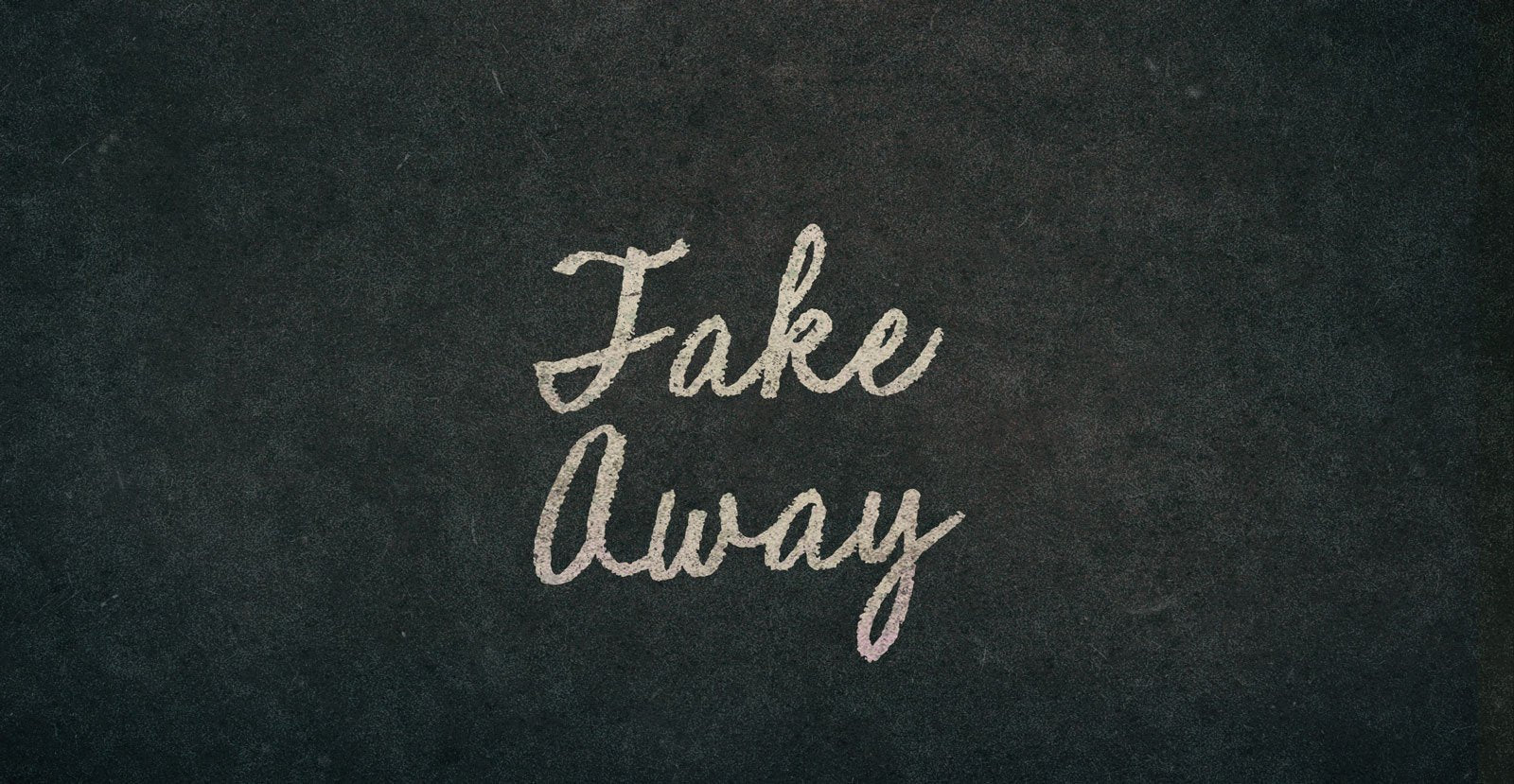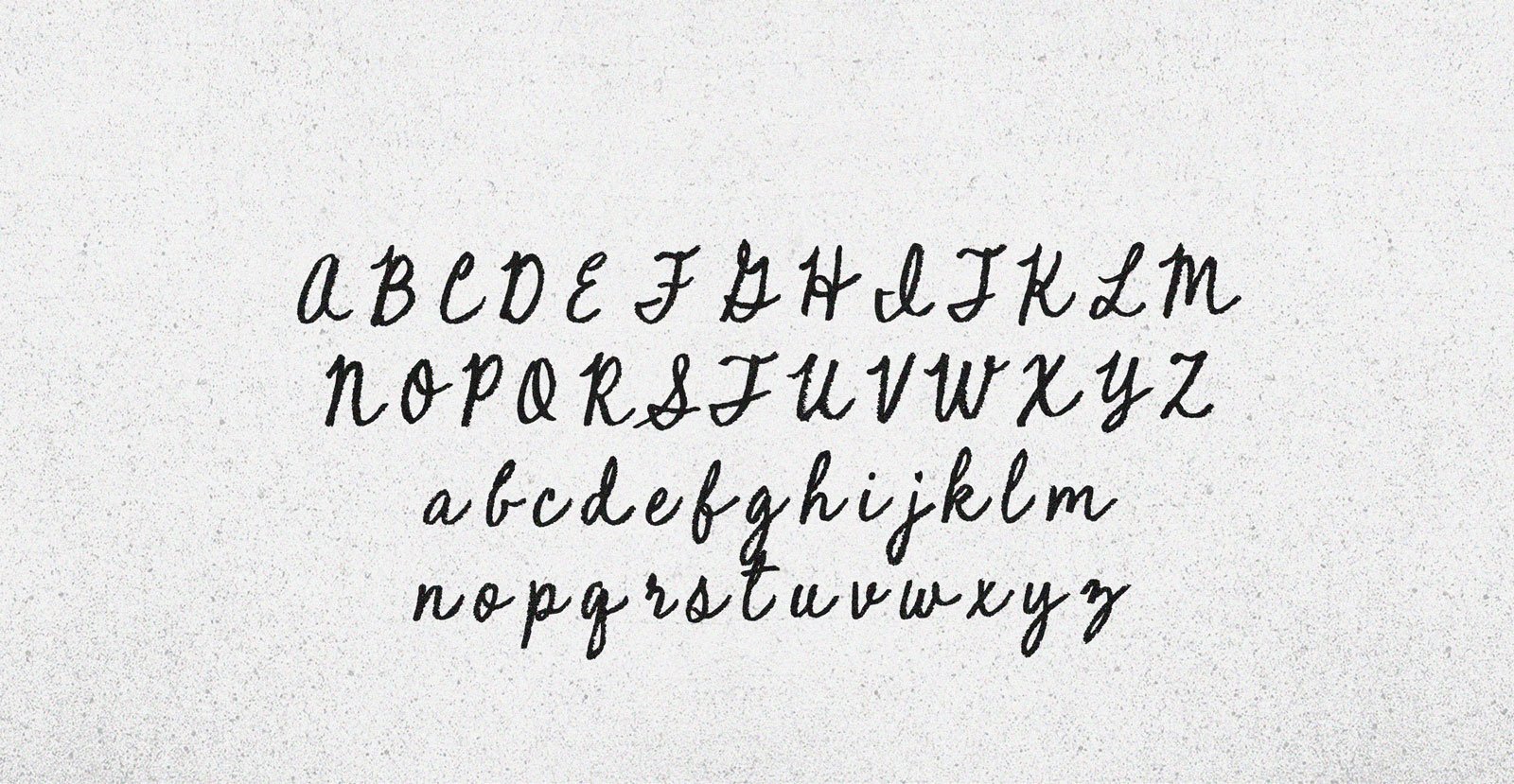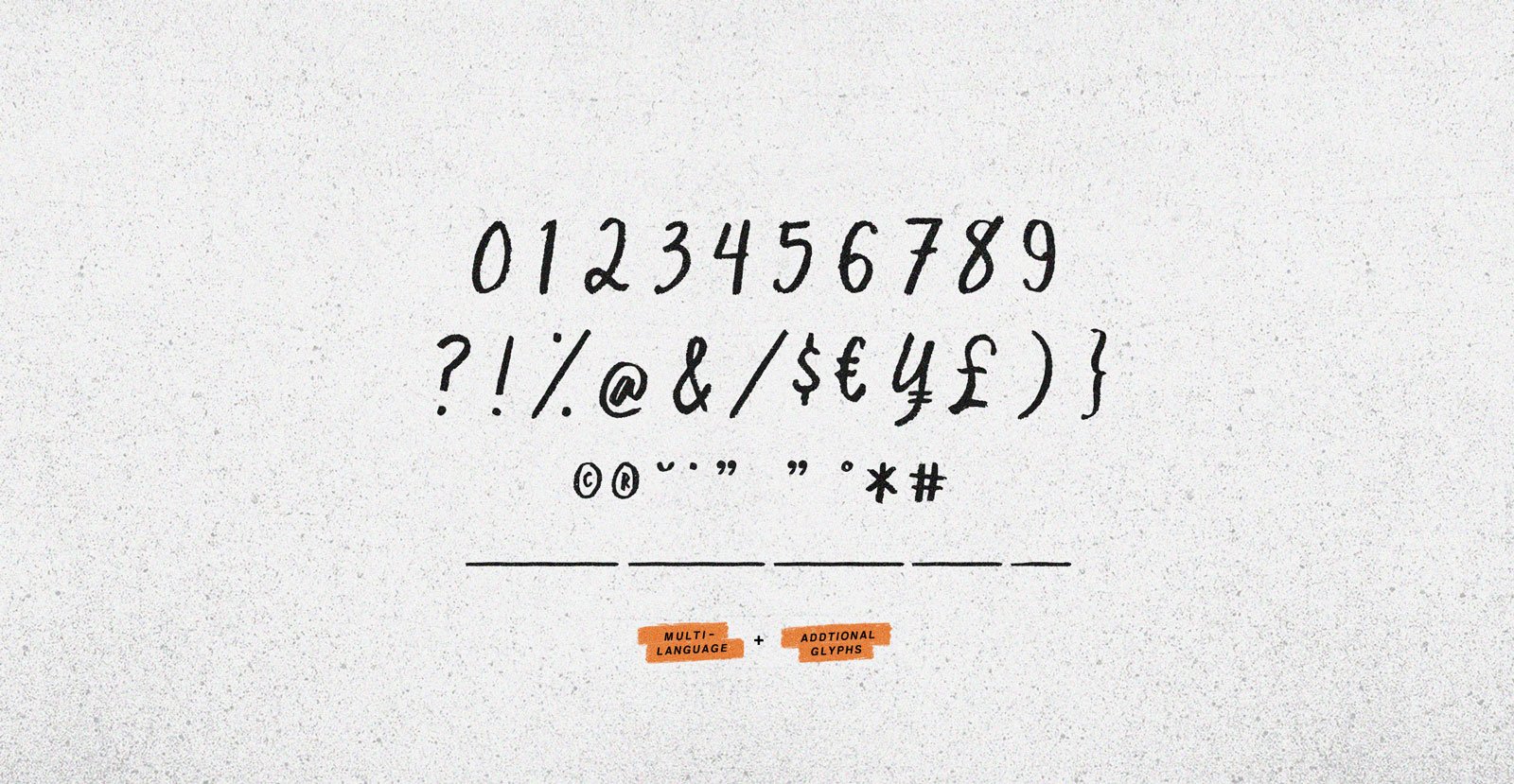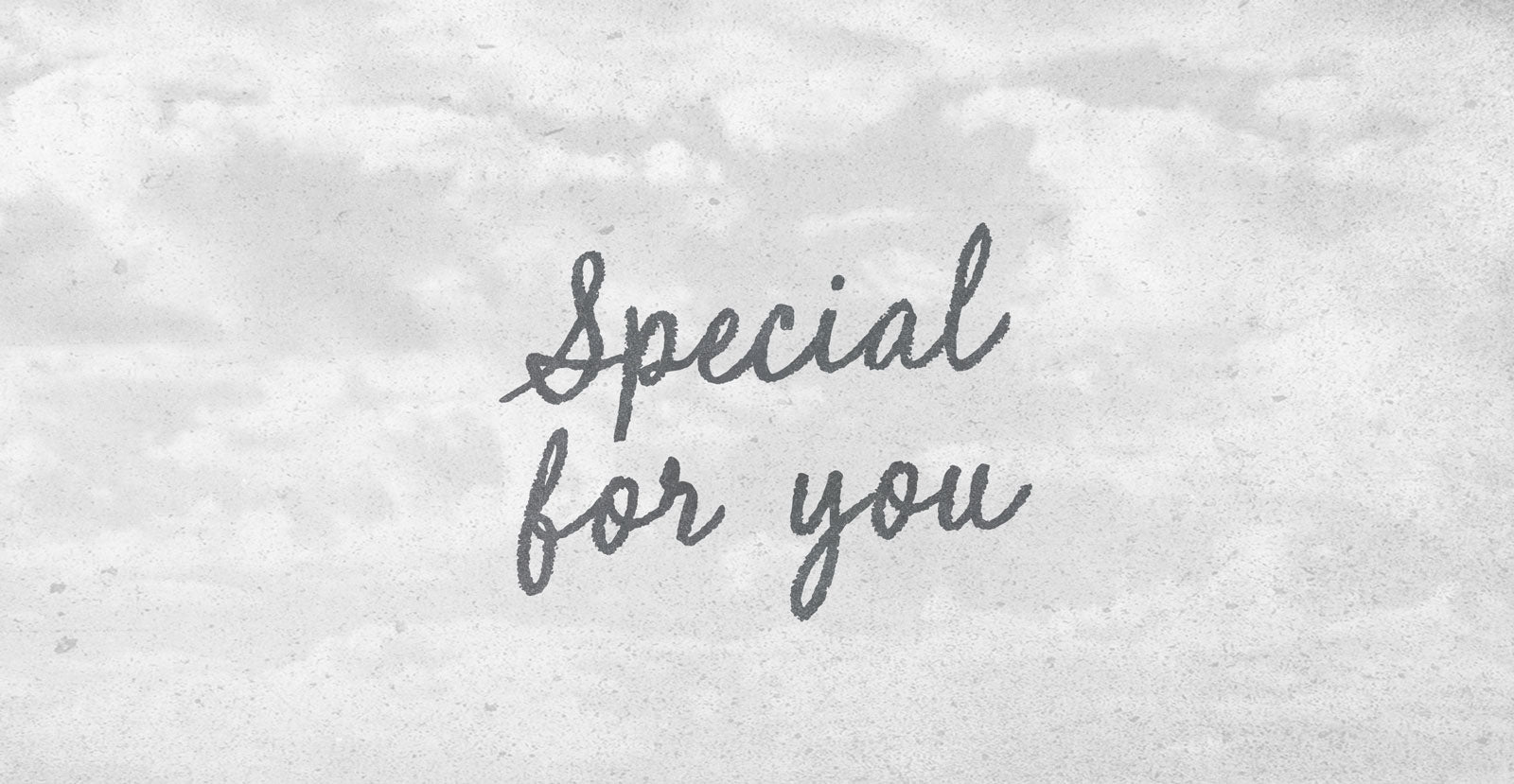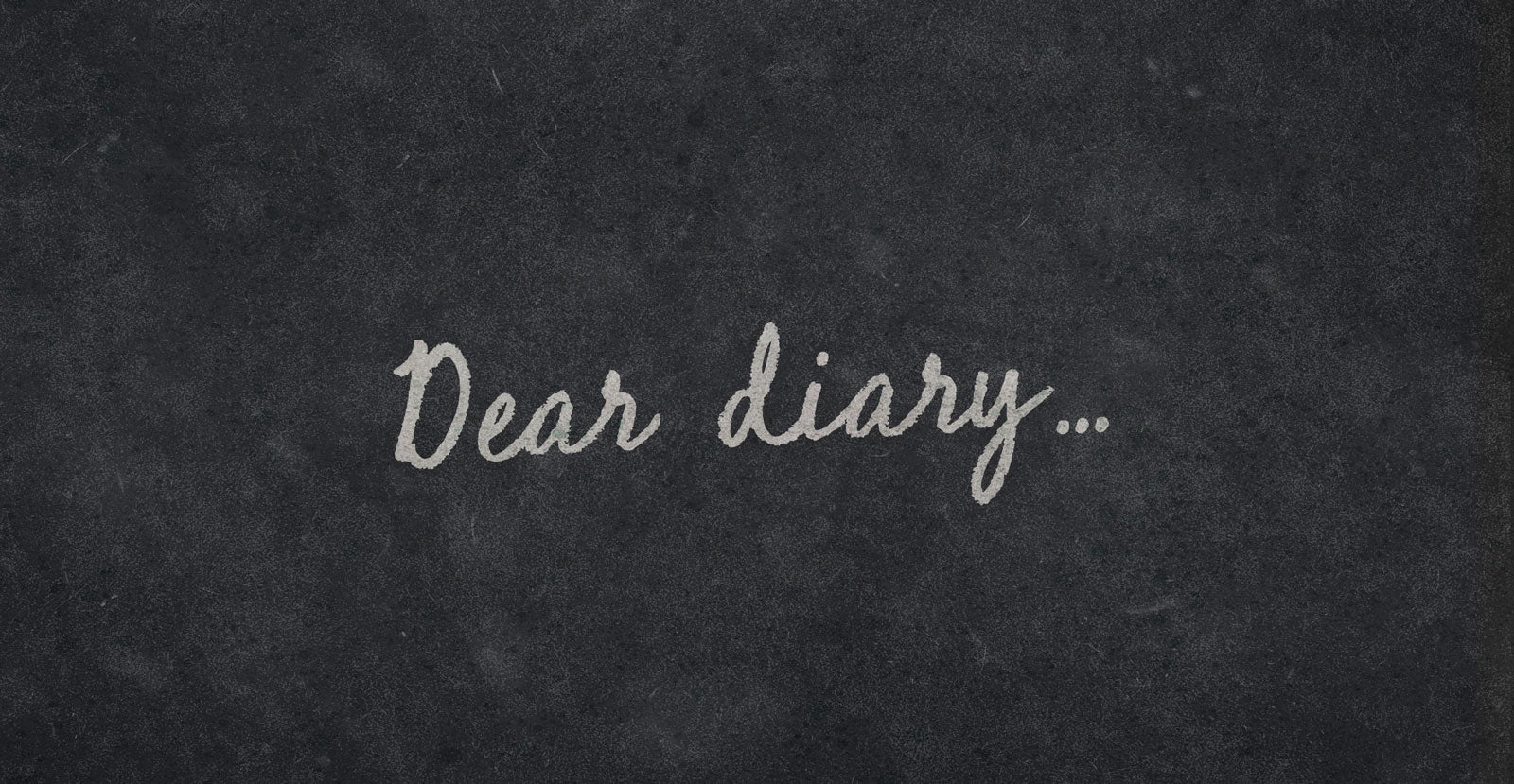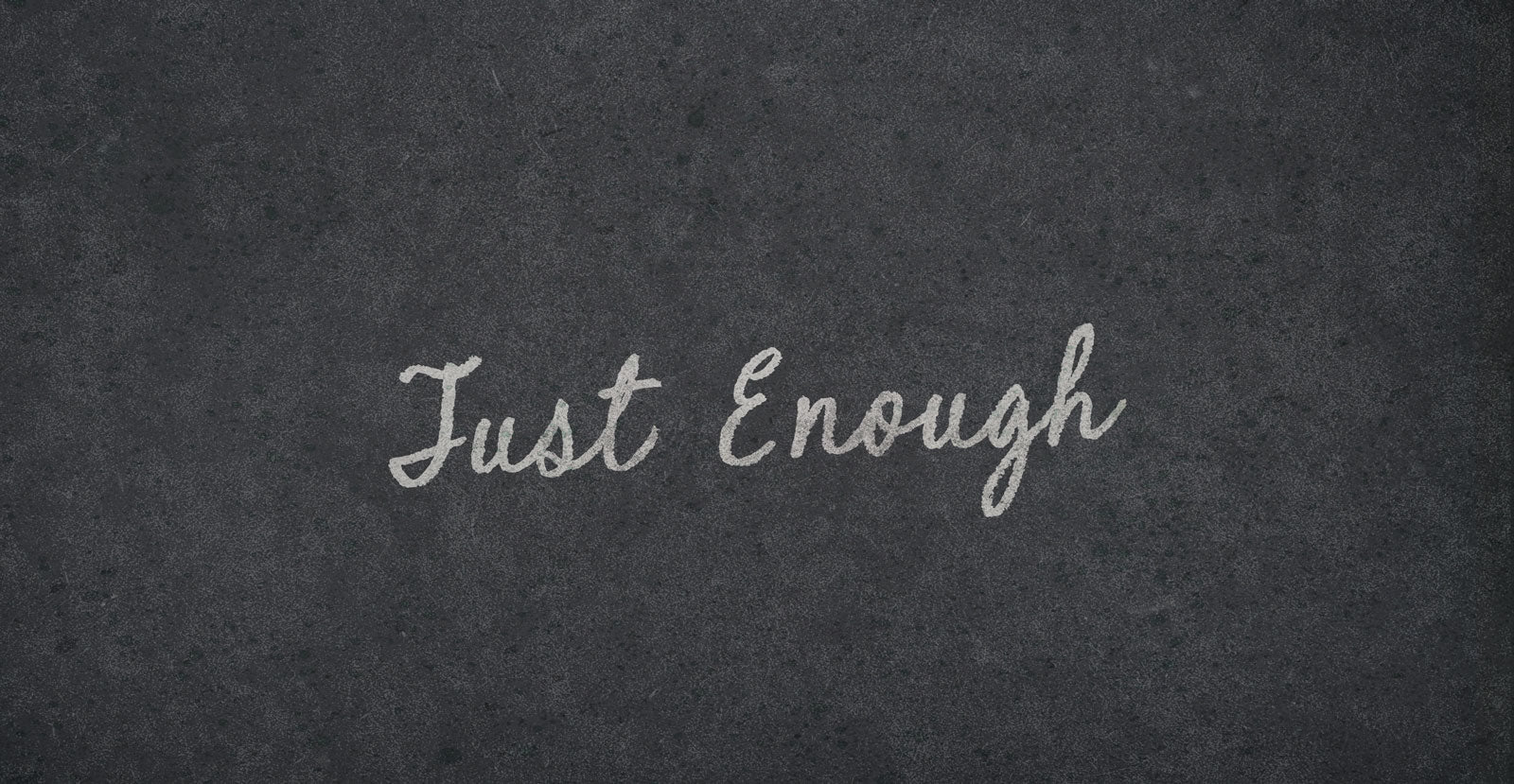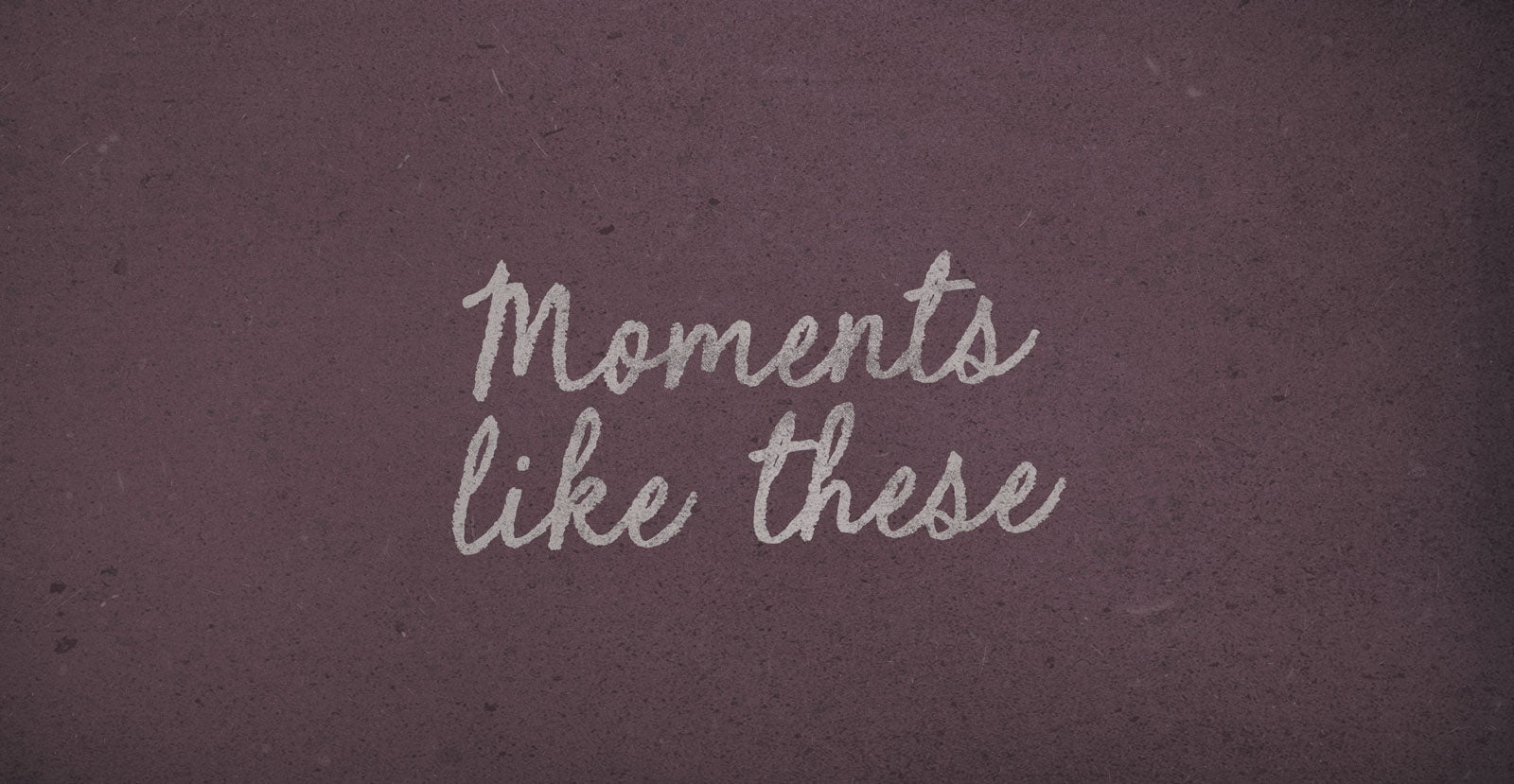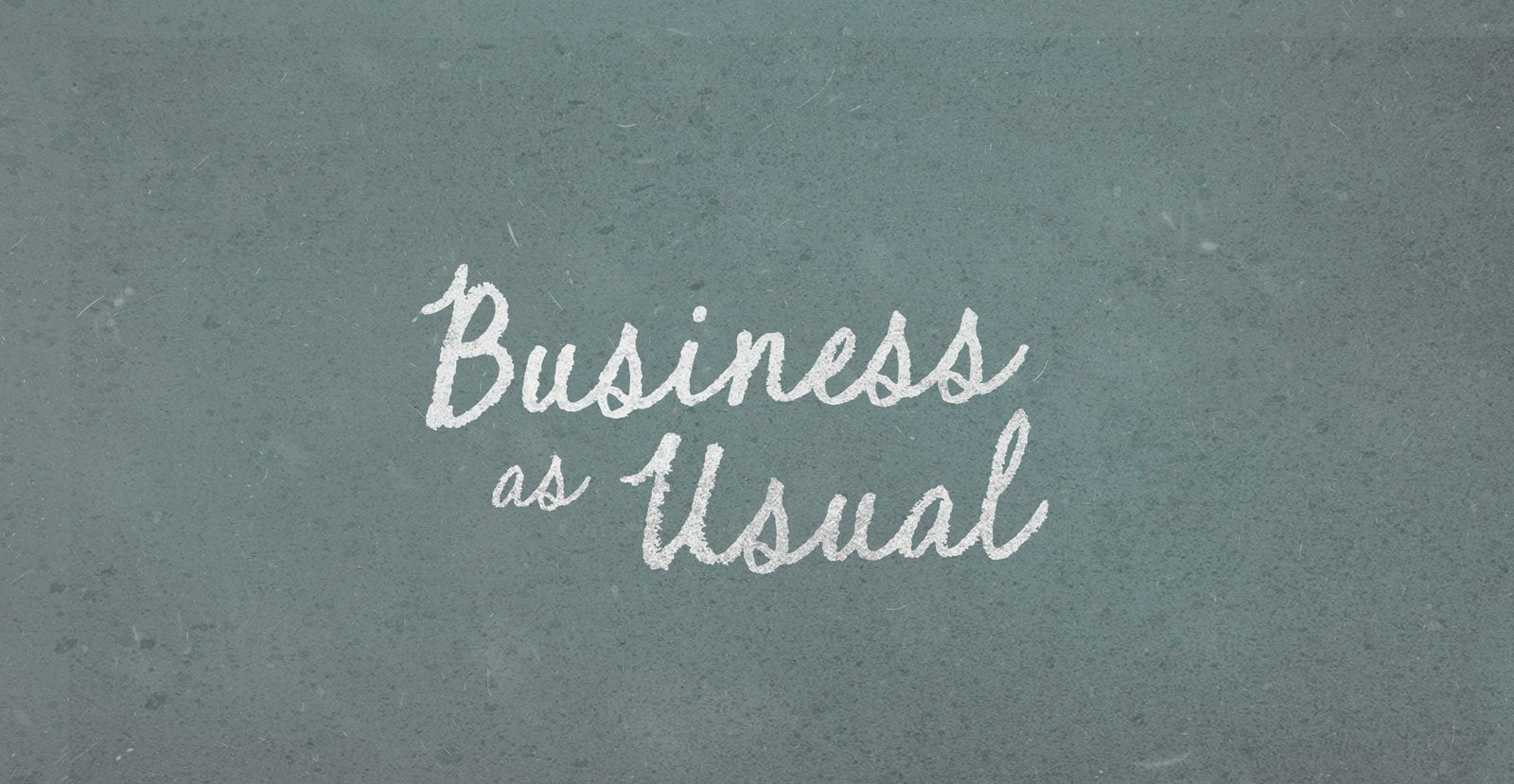
Take Away
Staking tomorrow's curriculum in the heart of yesterday's crimes. Writing lessons with a tremor, the Take Away of tragedy, packed in a styrofoam clamshell, dangling from the finger of the newly educated.
• Underlines